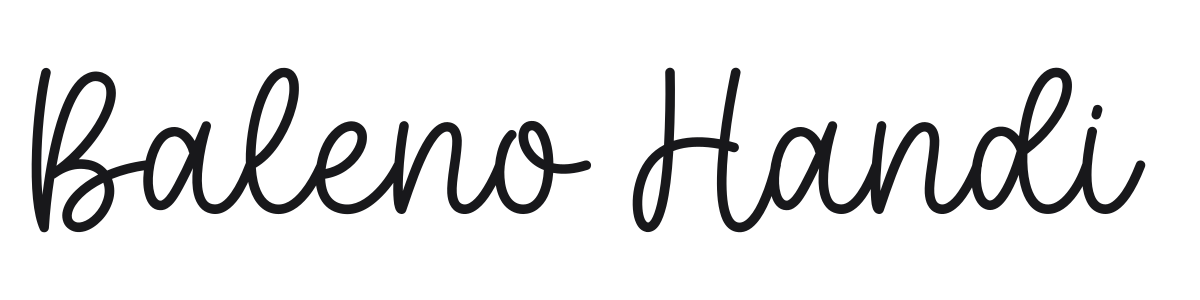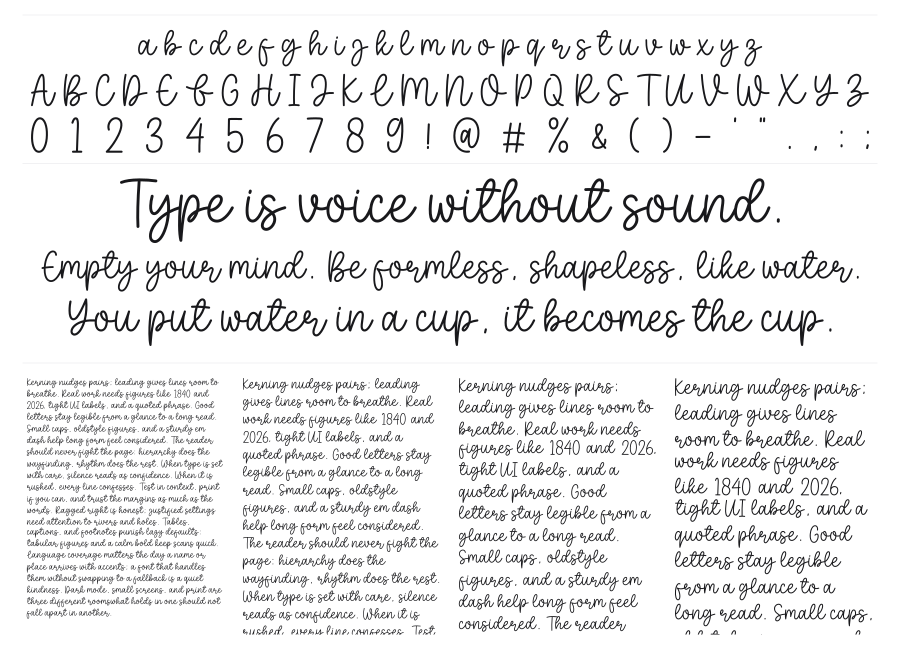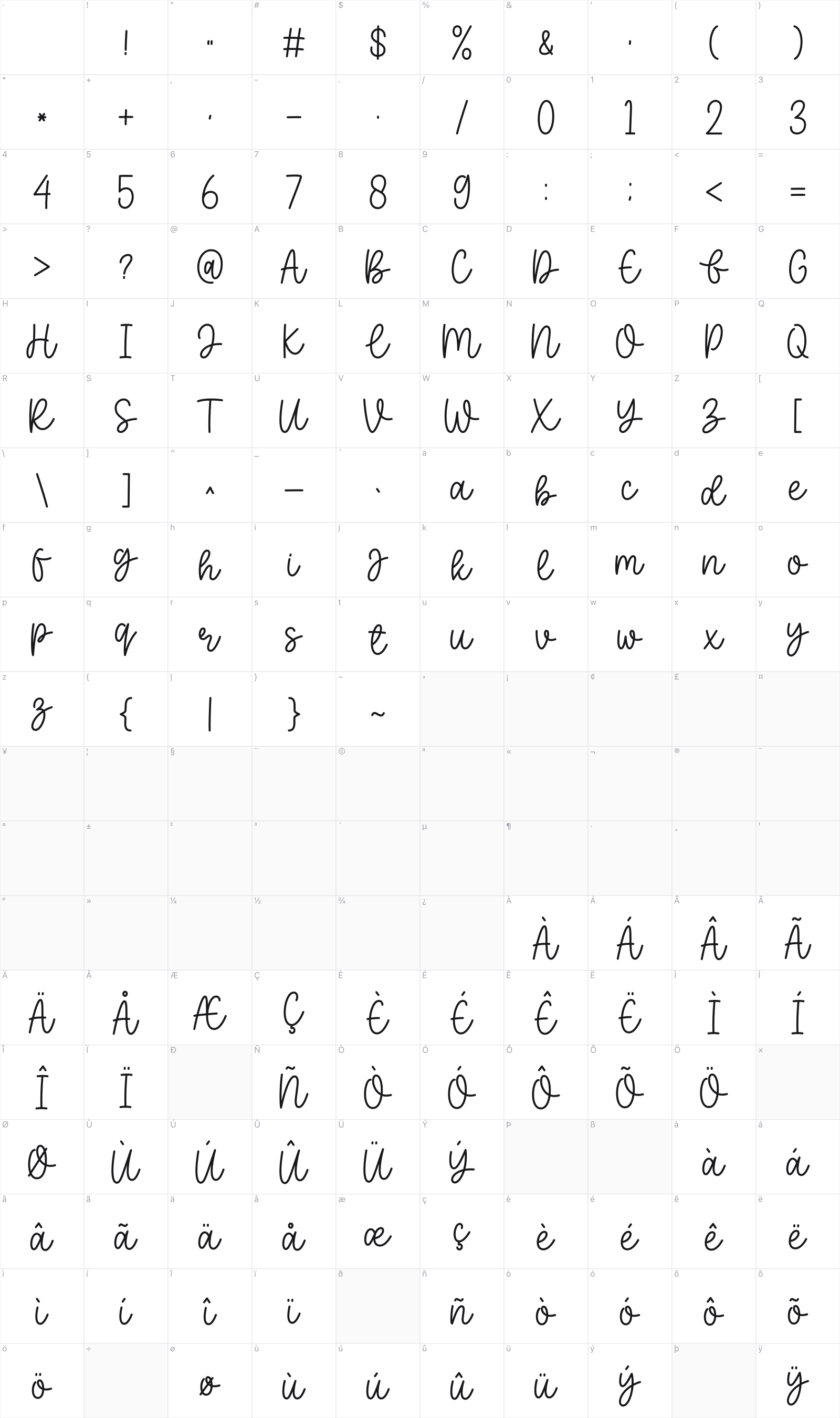
Baleno Handi
Baleno Handi is a casual connected script with smooth looping strokes and a relaxed, hand-drawn rhythm. The near-monoweight construction keeps it light and airy, while the flowing character connections give it a natural, unhurried feel. It suits branding projects where warmth and approachability matter more than formality.